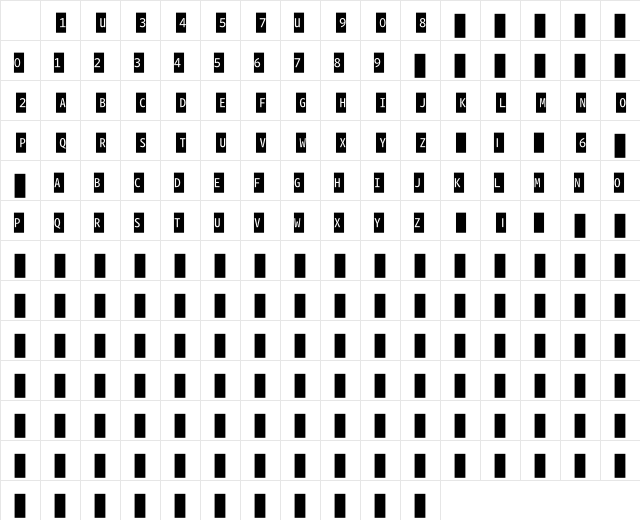
Complete WhitneyIndexBlack SquareLt2 glyph index. Displaying only characters natively supported by WhitneyIndexBlack SquareLt2 font.
WhitneyIndexBlack is a composed and adaptable typeface that performs quietly and consistently across a wide range of design contexts.